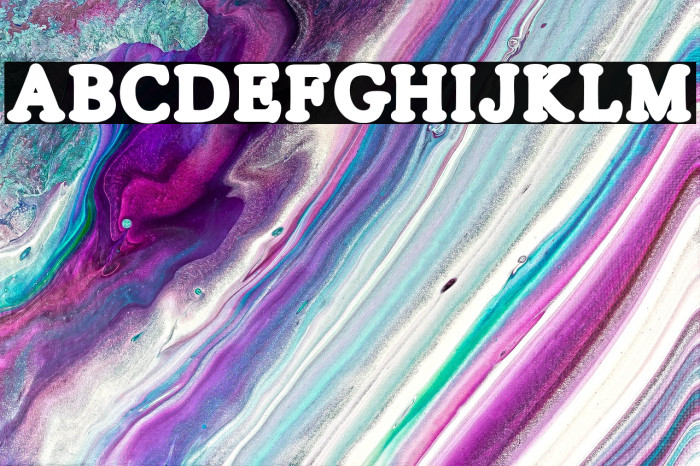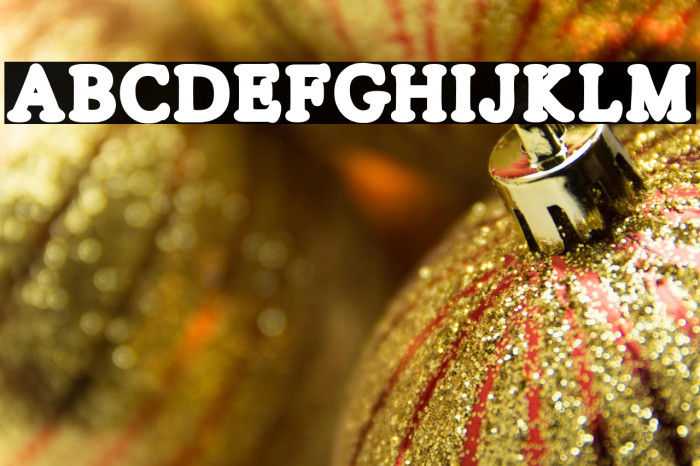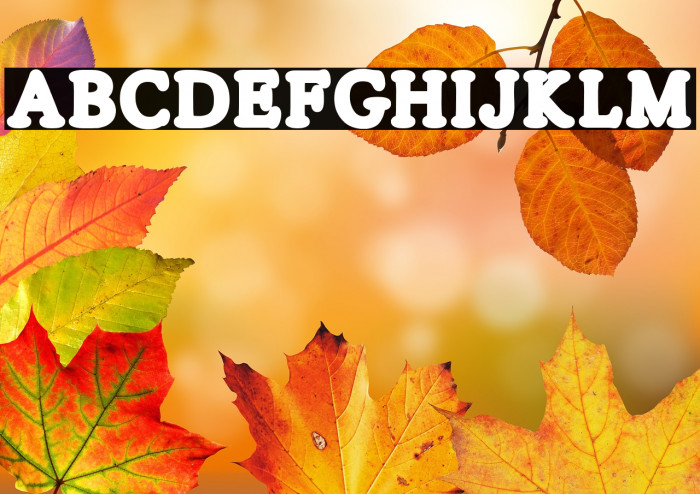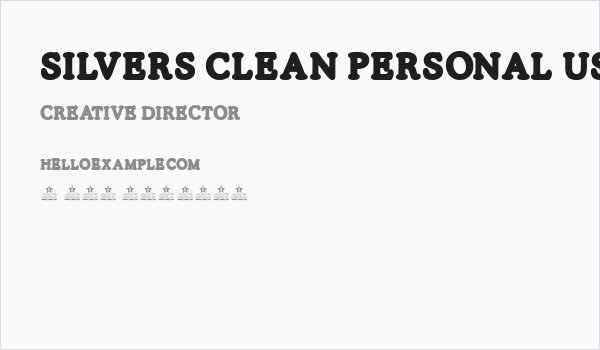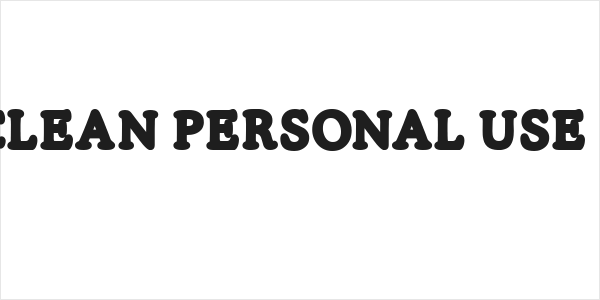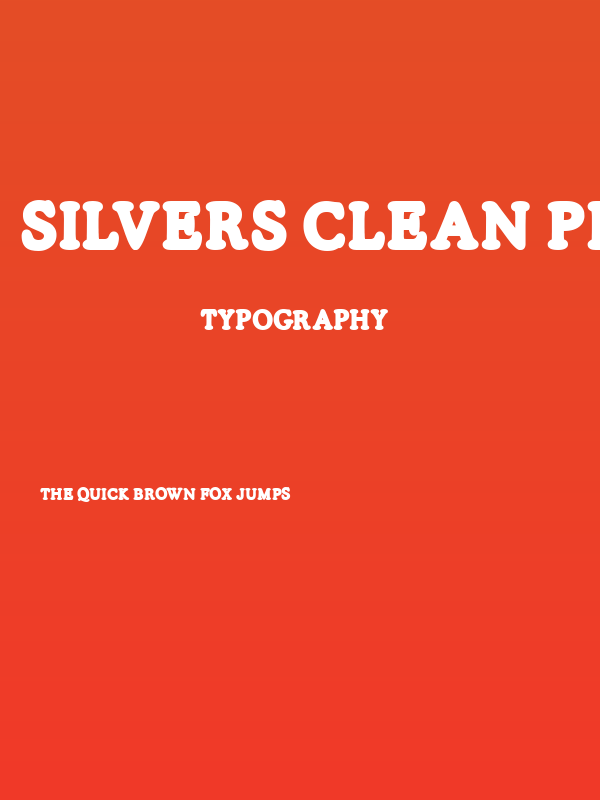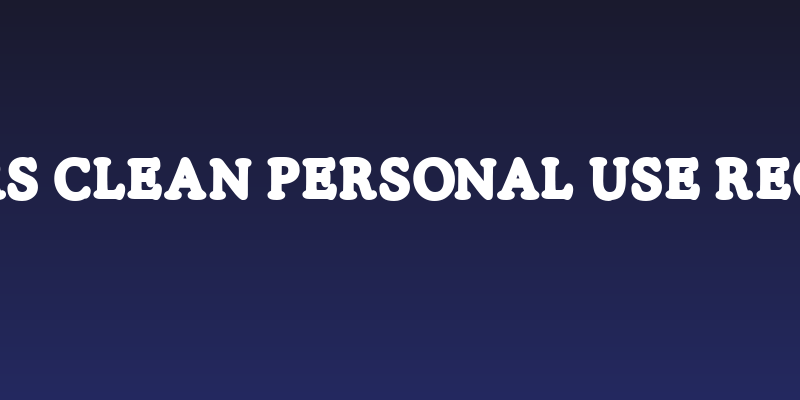
SILVERS CLEAN PERSONAL USE Regular Font
This font features bold, rounded characters with a playful and decorative style. The letters have a consistent thickness, giving them a strong and uniform appearance. The rounded edges and slightly inflated look add a whimsical touch, making it stand out as a display font. The uppercase letters are prominent and eye-catching, suitable for titles and headings. The overall design is cohesive, with each character maintaining a similar width and height, ensuring readability while adding a unique flair.
| Proposed Projects | Ideal for children's books, playful branding, posters, and creative projects that require a fun and engaging typeface. |